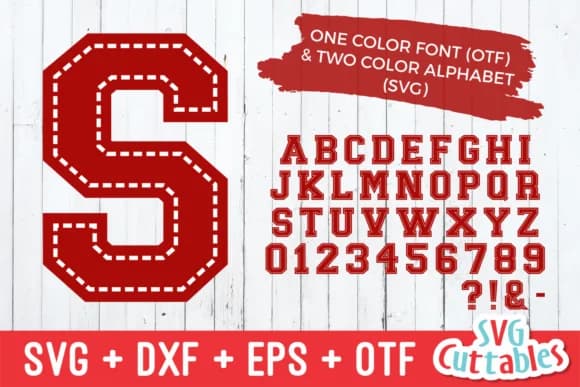
JP Sport Stacked Font by SVG Cuttables is a bold slab serif with a distinctive stacked and mirrored construction. The architectural letterforms command real presence on the page, their weight and layered structure making them hard to ignore. This style works especially well for team spirit banners, varsity-style merchandise decals, and collegiate event signage where visual impact matters more than refinement.
You'll find it handles retro athletic branding beautifully. Picture it on vintage gym posters, sports team logos, thank you cards with a varsity edge, or logo work for local athletic clubs. The stacked construction gives each character depth and weight, making letterforms readable even at smaller sizes while maintaining that bold, authoritative feel. Many designers pair it with cutting machines for custom apparel tags, varsity decal projects, and sports trophy design work where the weight and presence of the letterforms count.
The font's stacked letterforms also offer practical design flexibility. You can layer colors within the character structure for dimensional effects, use it as a bold single weight for direct impact, or explore the mirrored properties for unique directional treatments. It's a natural choice when you need typography that looks grounded in classic athletic aesthetics without veering toward corporate sterility. Pick up this font on Creative Fabrica when you're ready to bring serious presence to your next project.
- Sturdy, Confident, Stacked Font
JP Sport Stacked Font is a slab serif font that shines as a display or heading face. Pair it with a clean sans-serif or serif font for body text β the contrast creates a clear hierarchy while the two styles stay balanced and easy to read.